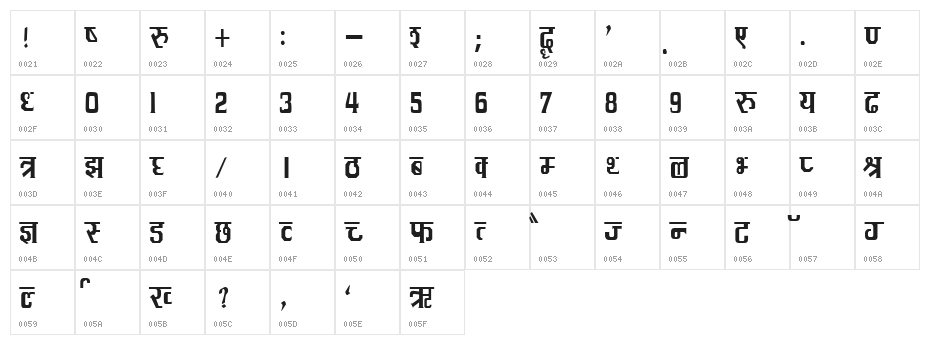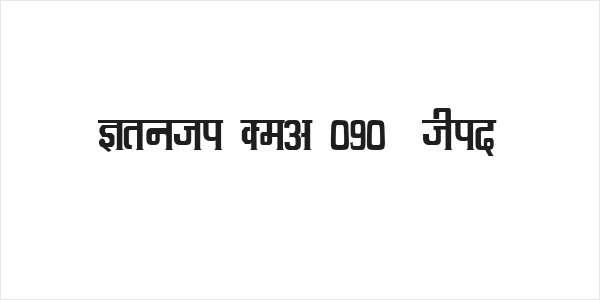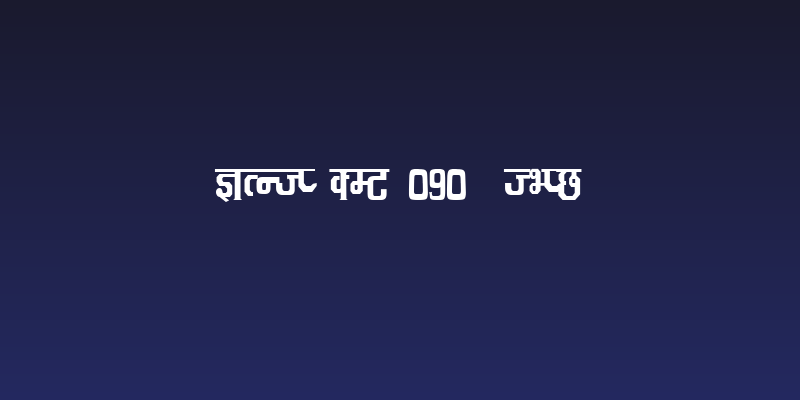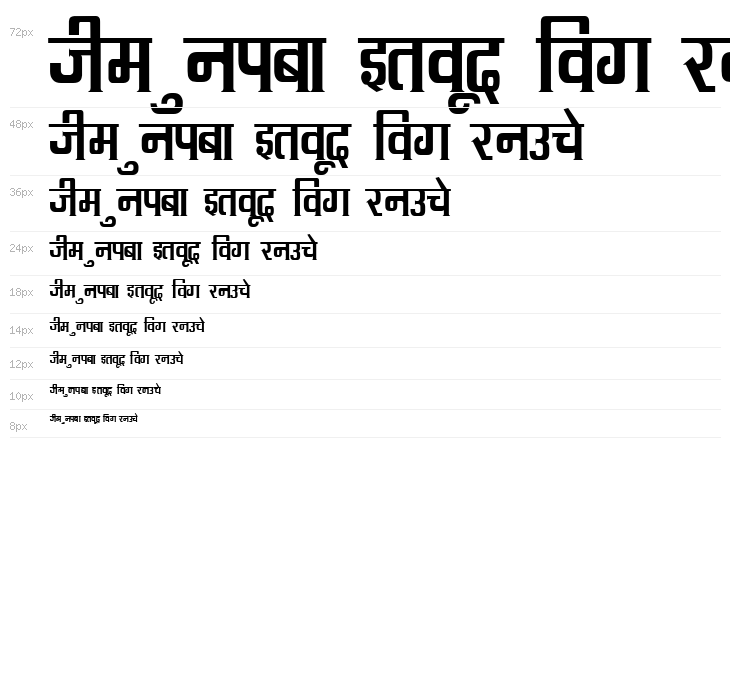
Kruti Dev 090 Thin Font
Kruti Dev 090 Thin Description
This font is a Devanagari script with a bold and structured appearance. The characters are designed with sharp edges and a geometric style, giving it a modern and authoritative look. The strokes are consistent in thickness, providing a uniform appearance across all characters. The numerals are clear and distinct, matching the overall style of the script. Special characters are integrated seamlessly, maintaining the font's cohesive design. This font is suitable for formal and professional use, where clarity and impact are essential.